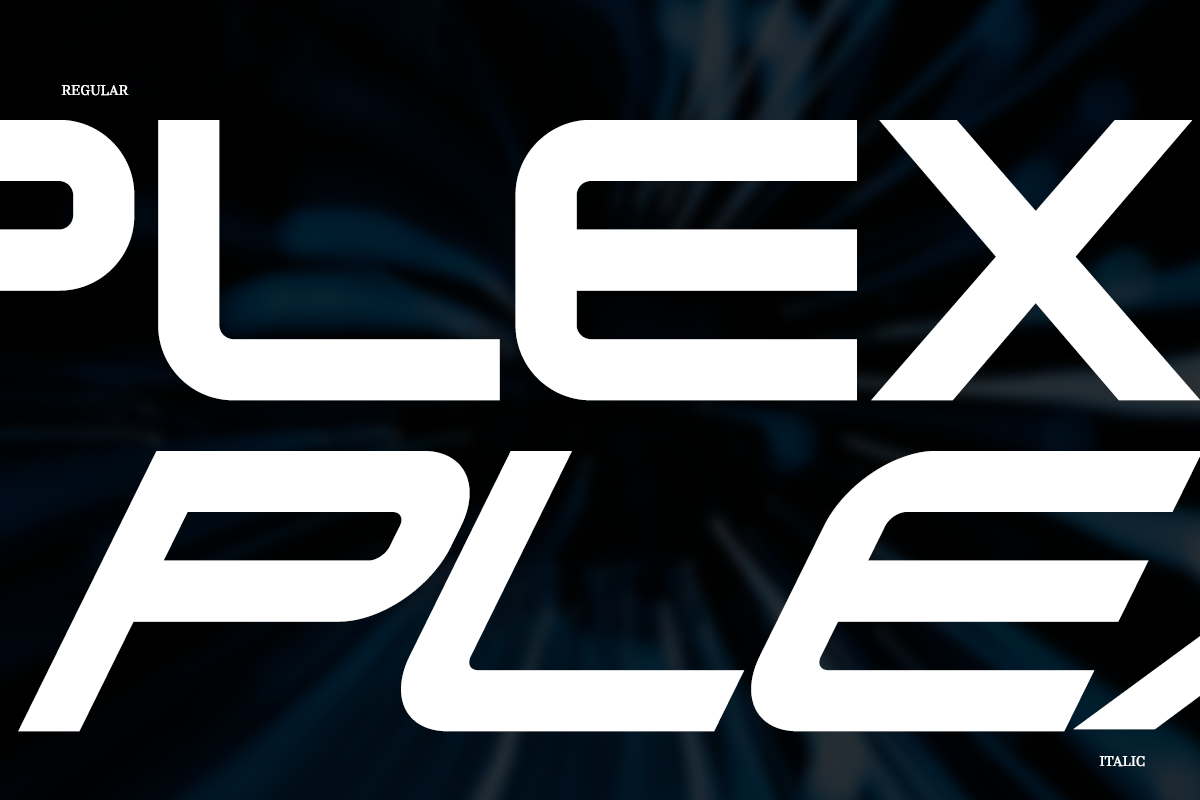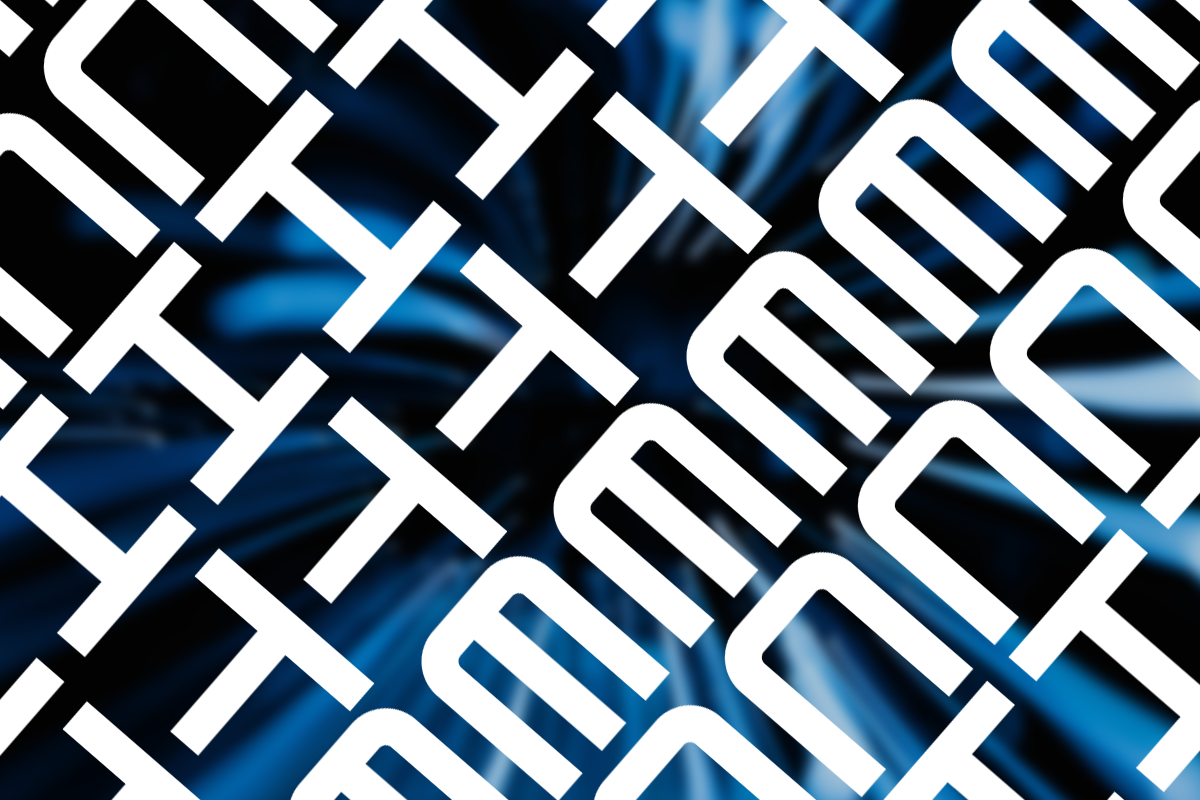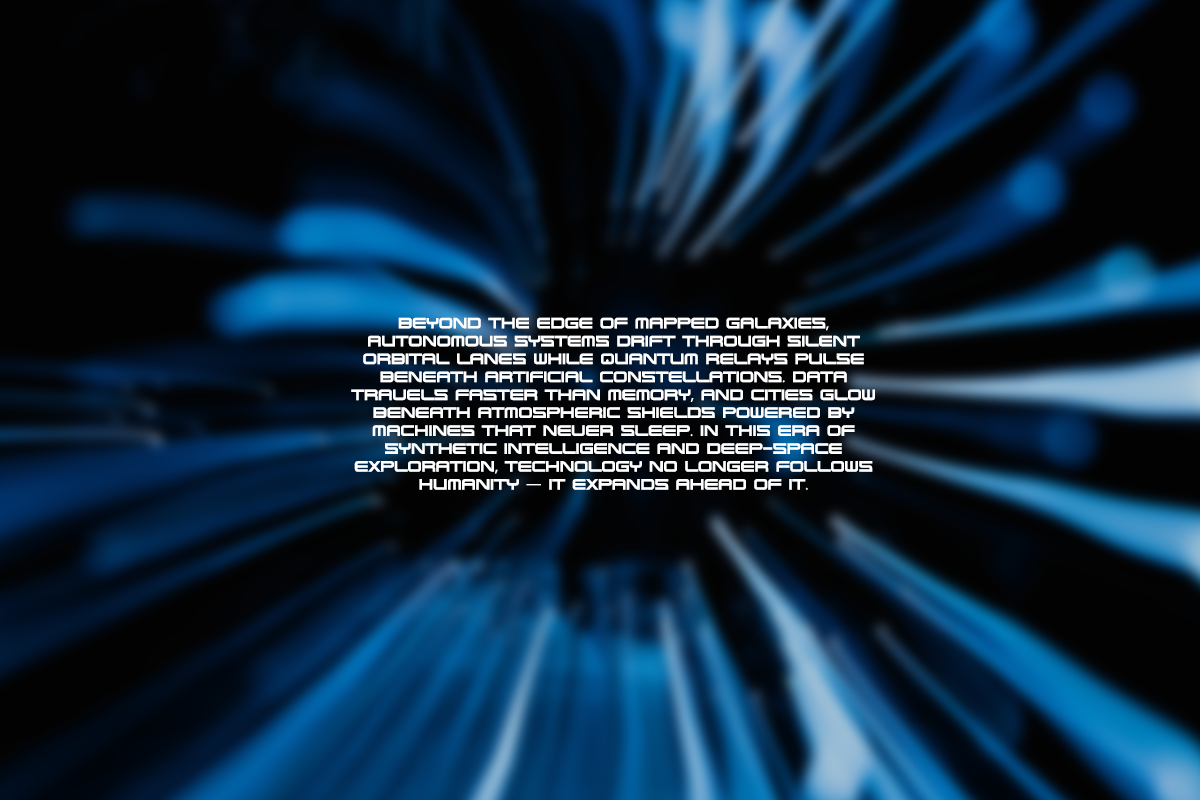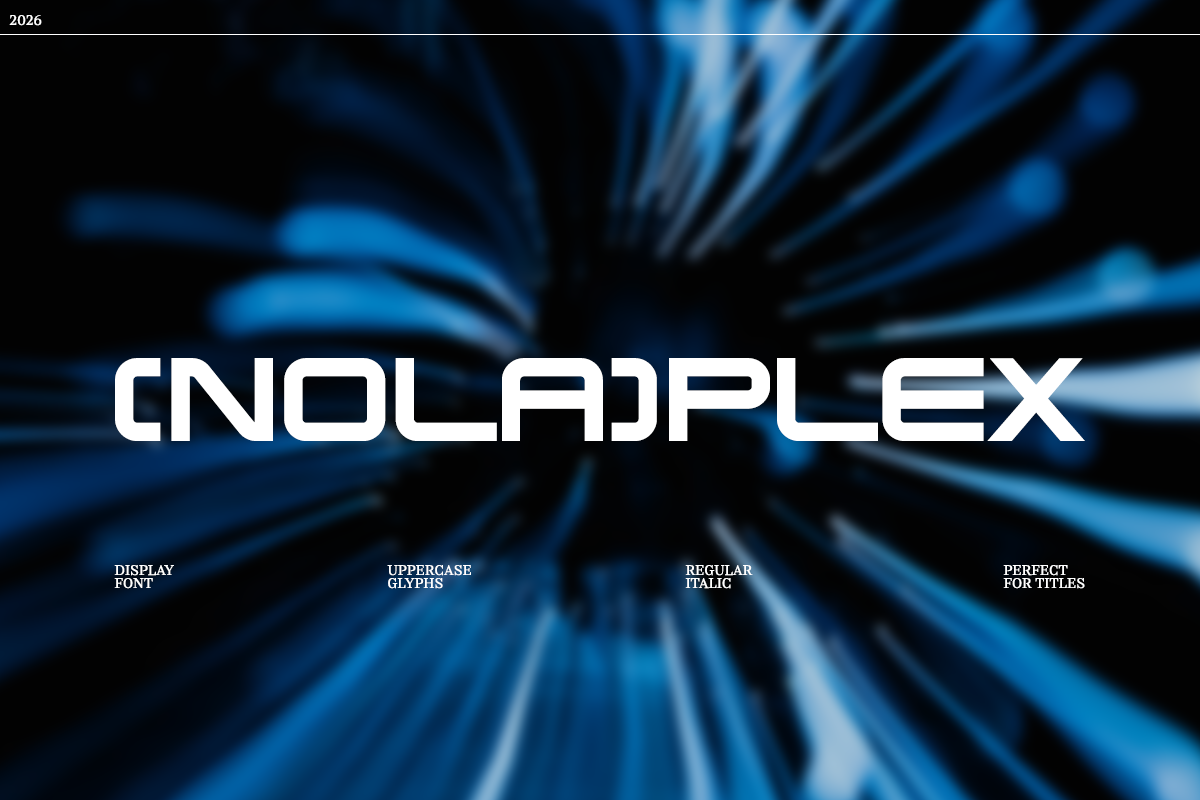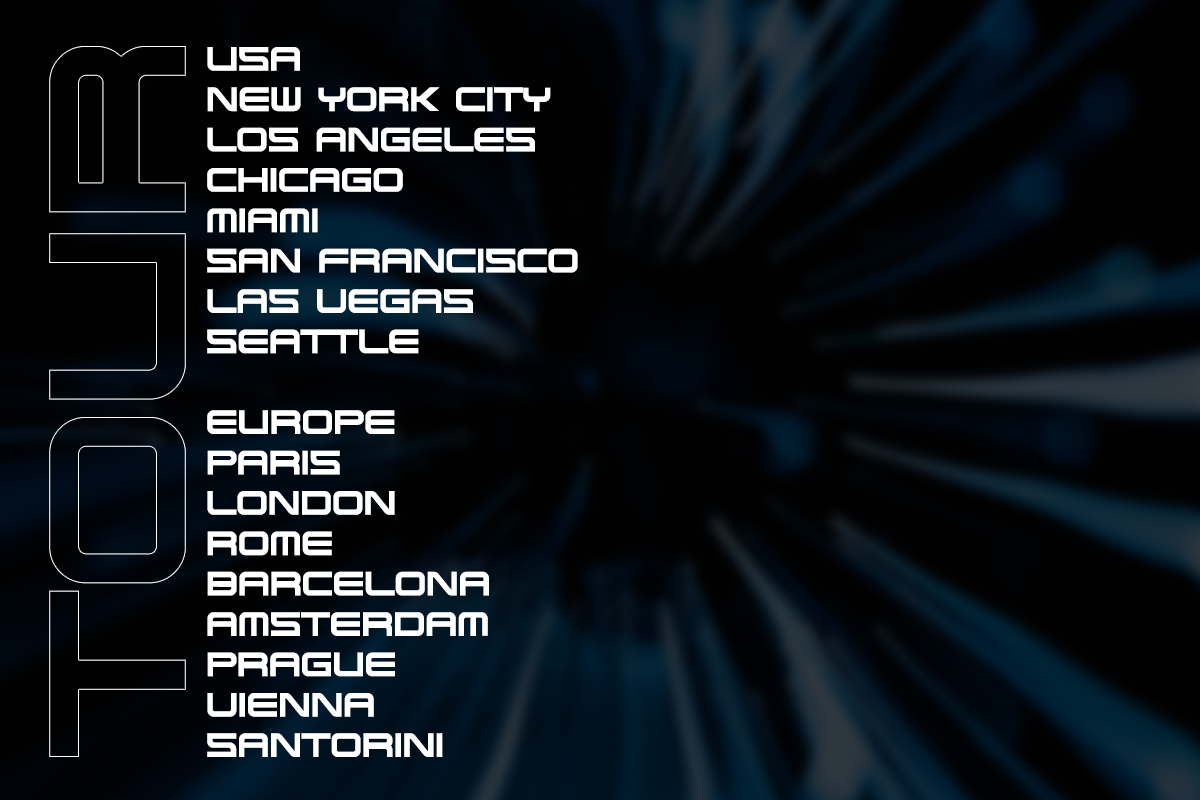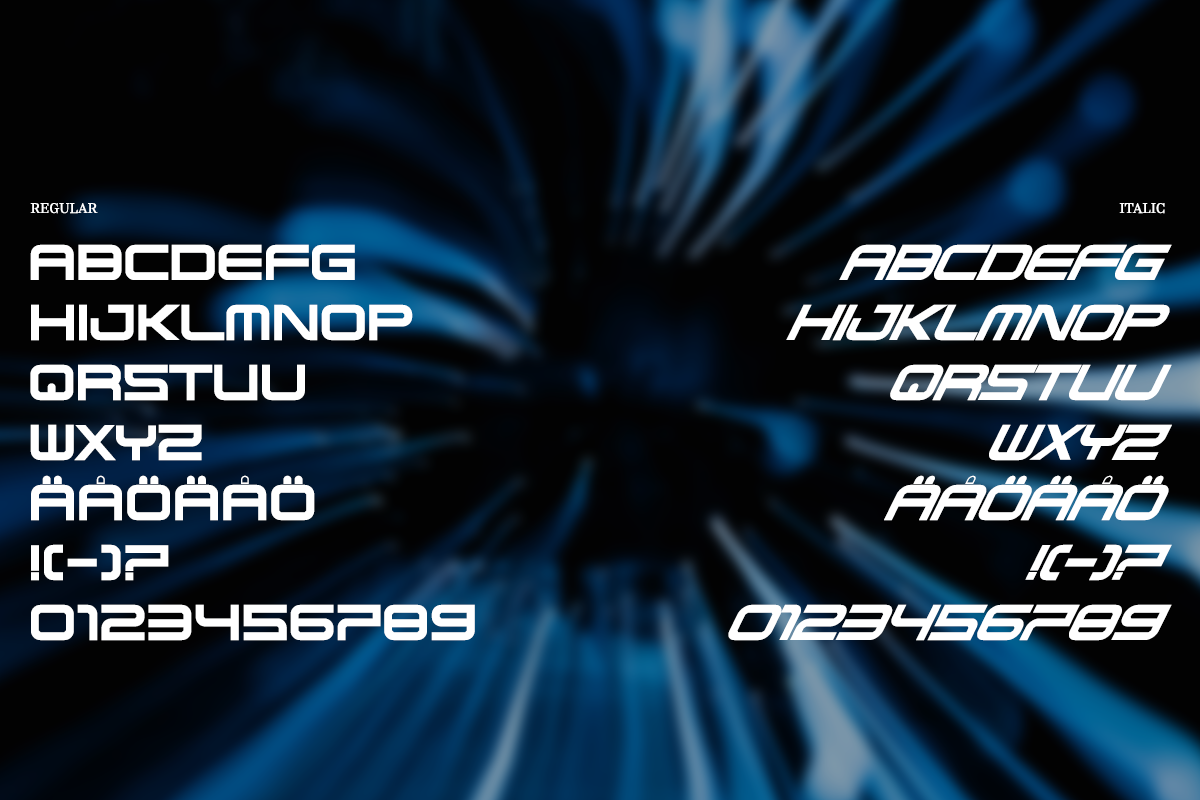
NOLAPLEX - Display Typeface
A futuristic display typeface built for speed, energy, and bold visual impact.
With its aerodynamic curves, wide geometric structure, and sci-fi inspired cuts, this font instantly gives your designs a modern cyber-tech identity.
gaming projects, racing visuals, tech branding, stream graphics, posters, apparel, UI concepts, and futuristic logos.
Includes both Regular and Italic styles for extra motion and attitude.